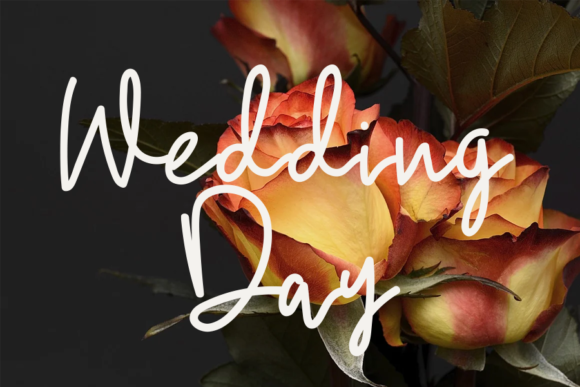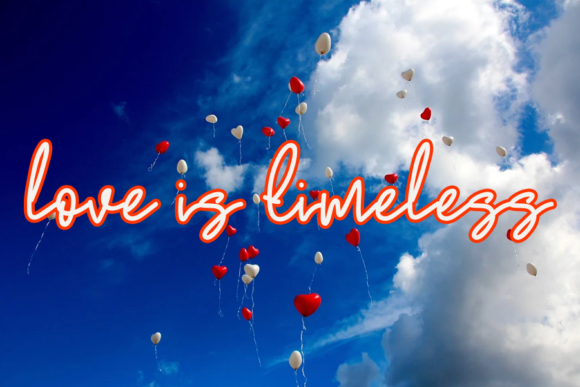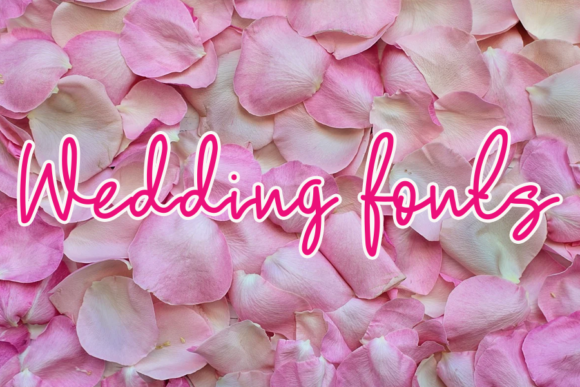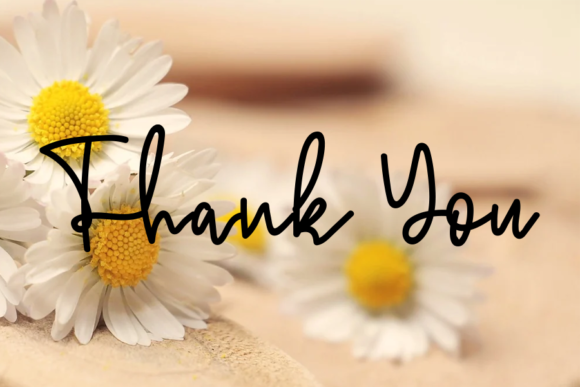
Introduction to Love Kitchen Font
Love Kitchen is a cute and charming handwritten font.
Whimsical and a bit quirky, this font will brighten up each of your designs Add it confidently to your projects, and you will love the results.